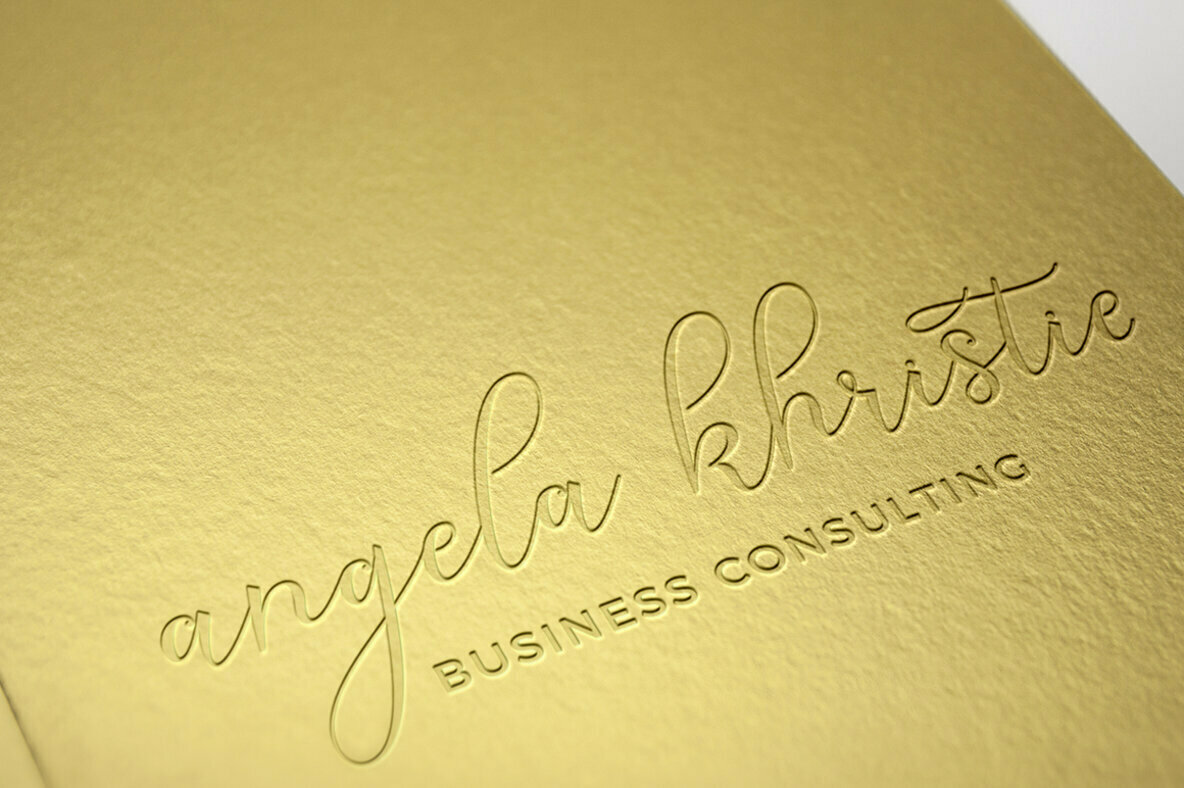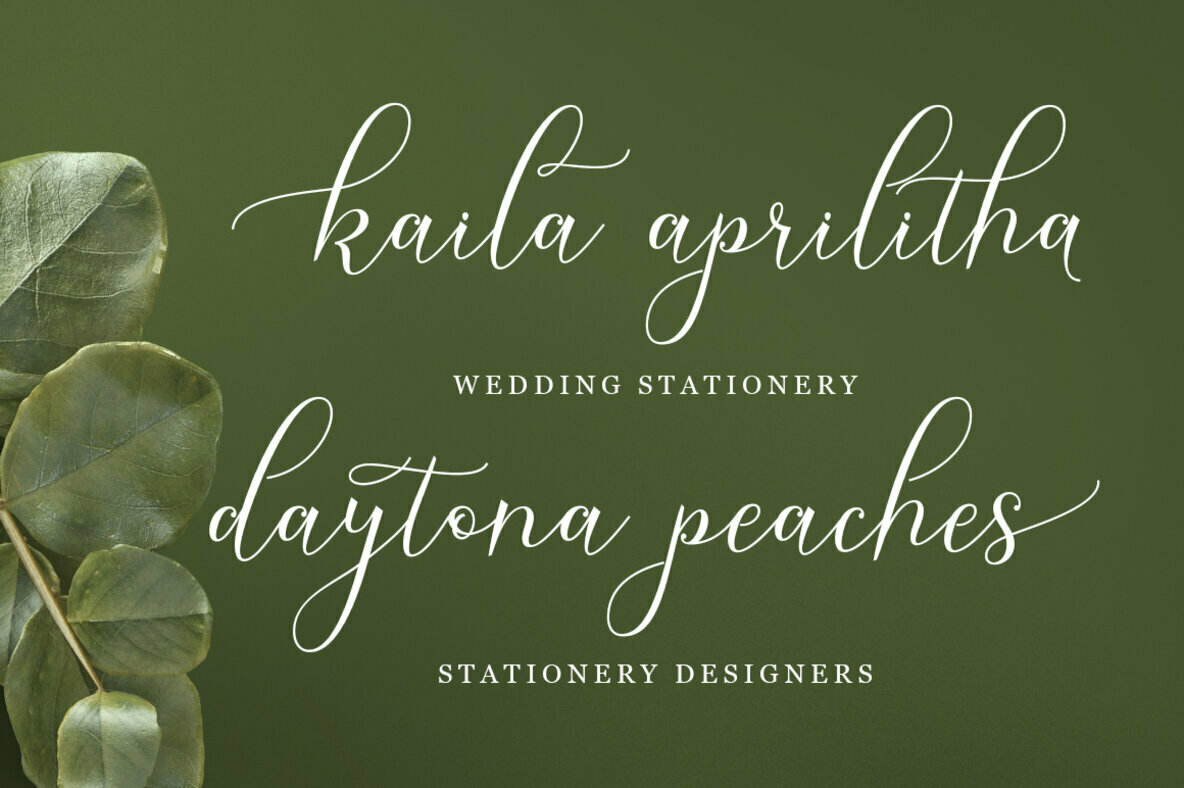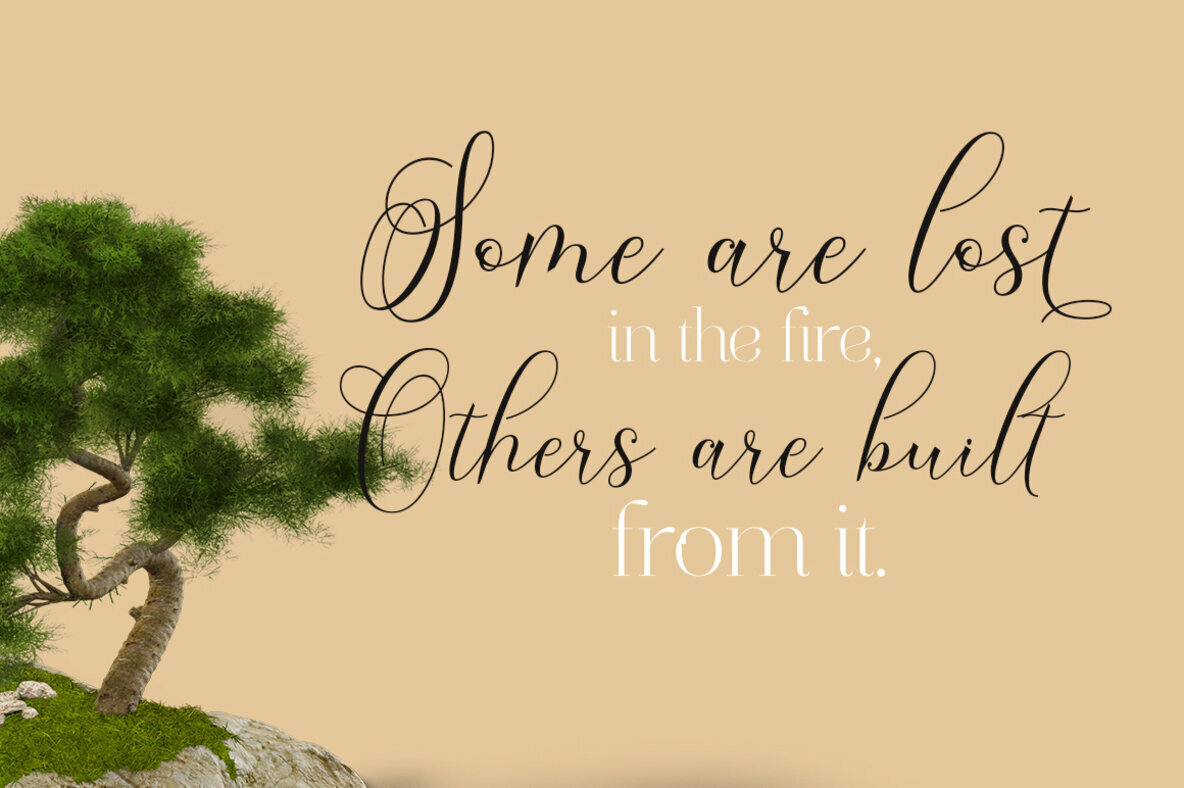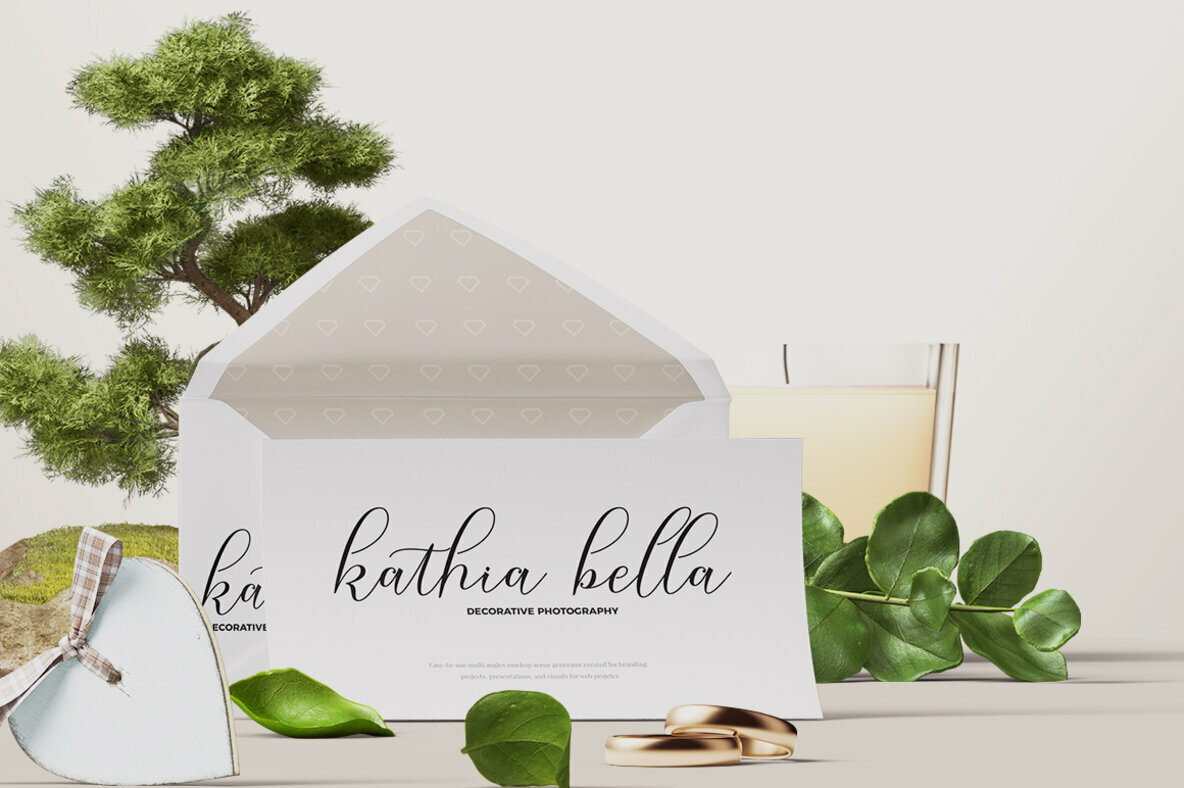
Soganest Font
Soganest
Soganest Script presents a fusion of elegance and modernity, making it a versatile choice for various design needs. This graceful calligraphy font offers stylish and delightful elements, providing a rich set of OpenType stylistic alternatives and beautiful ligatures, along with unique swashes to enhance your creations. Ideal for applications like logos, greeting cards, branding, quotes, and invitations, this font brings a touch of sophistication to any project.Soganest Script: Modern Calligraphy with Grace
This script font is perfect for crafting exquisite text with the elegance required to captivate and charm your audience.